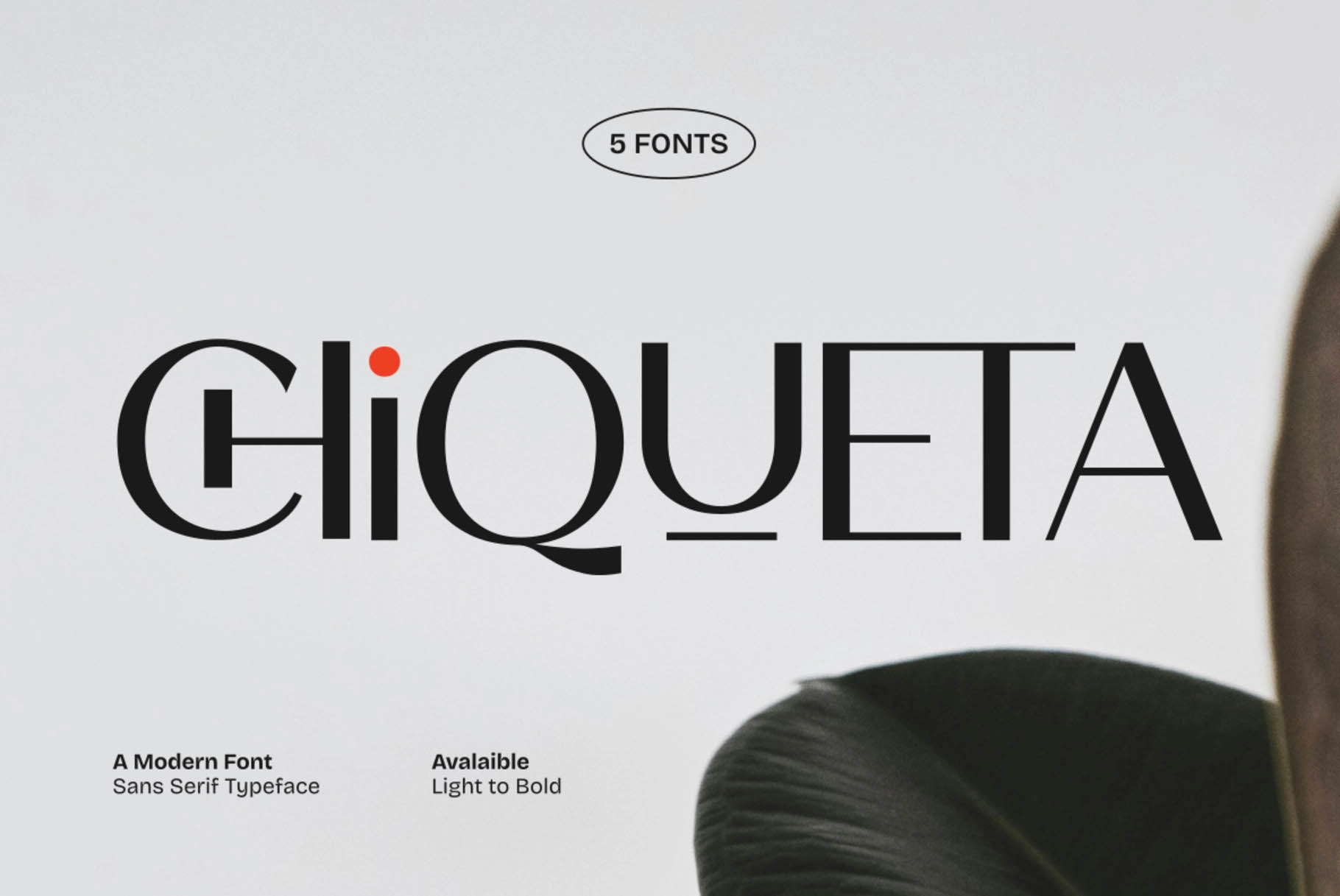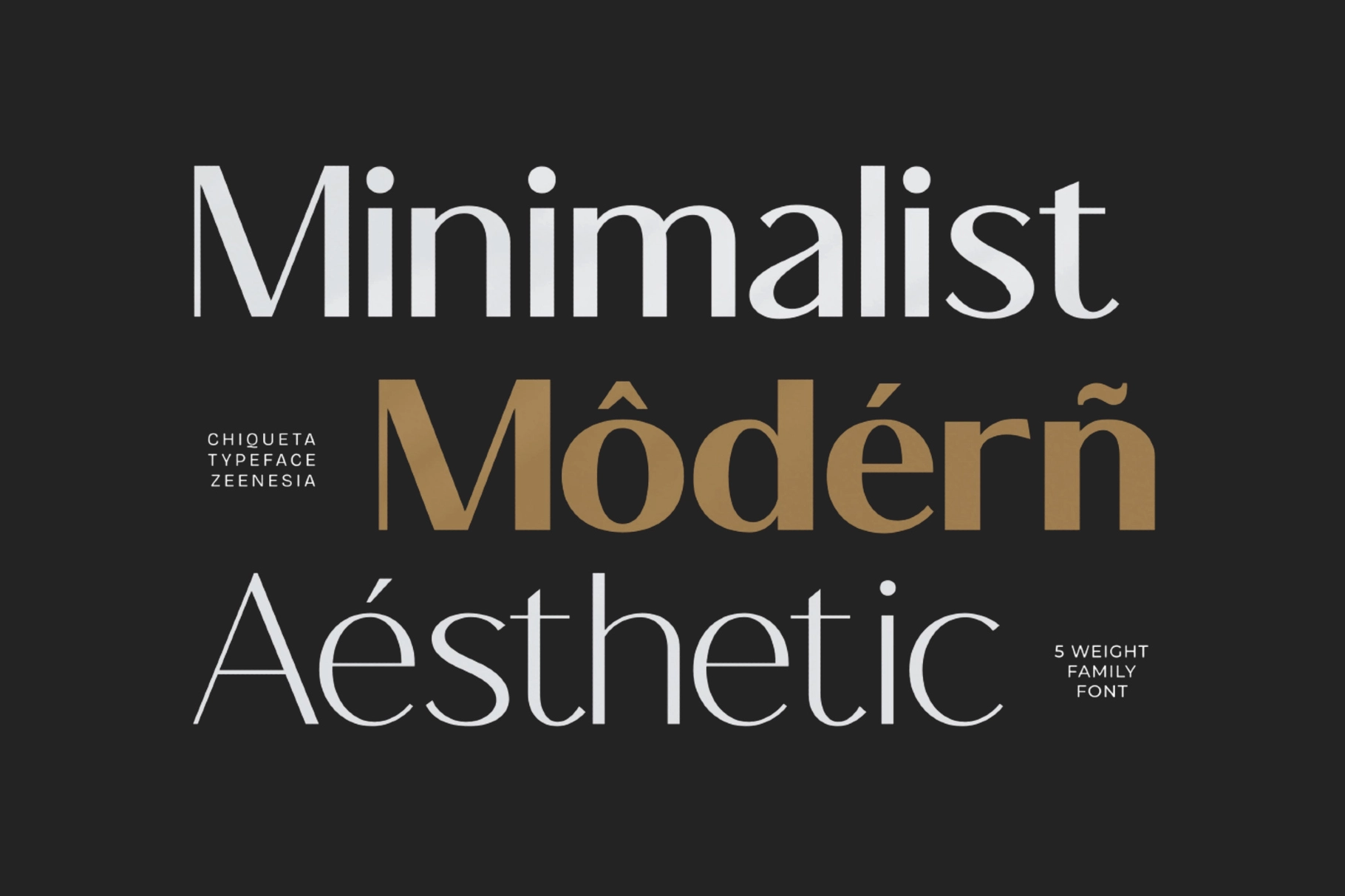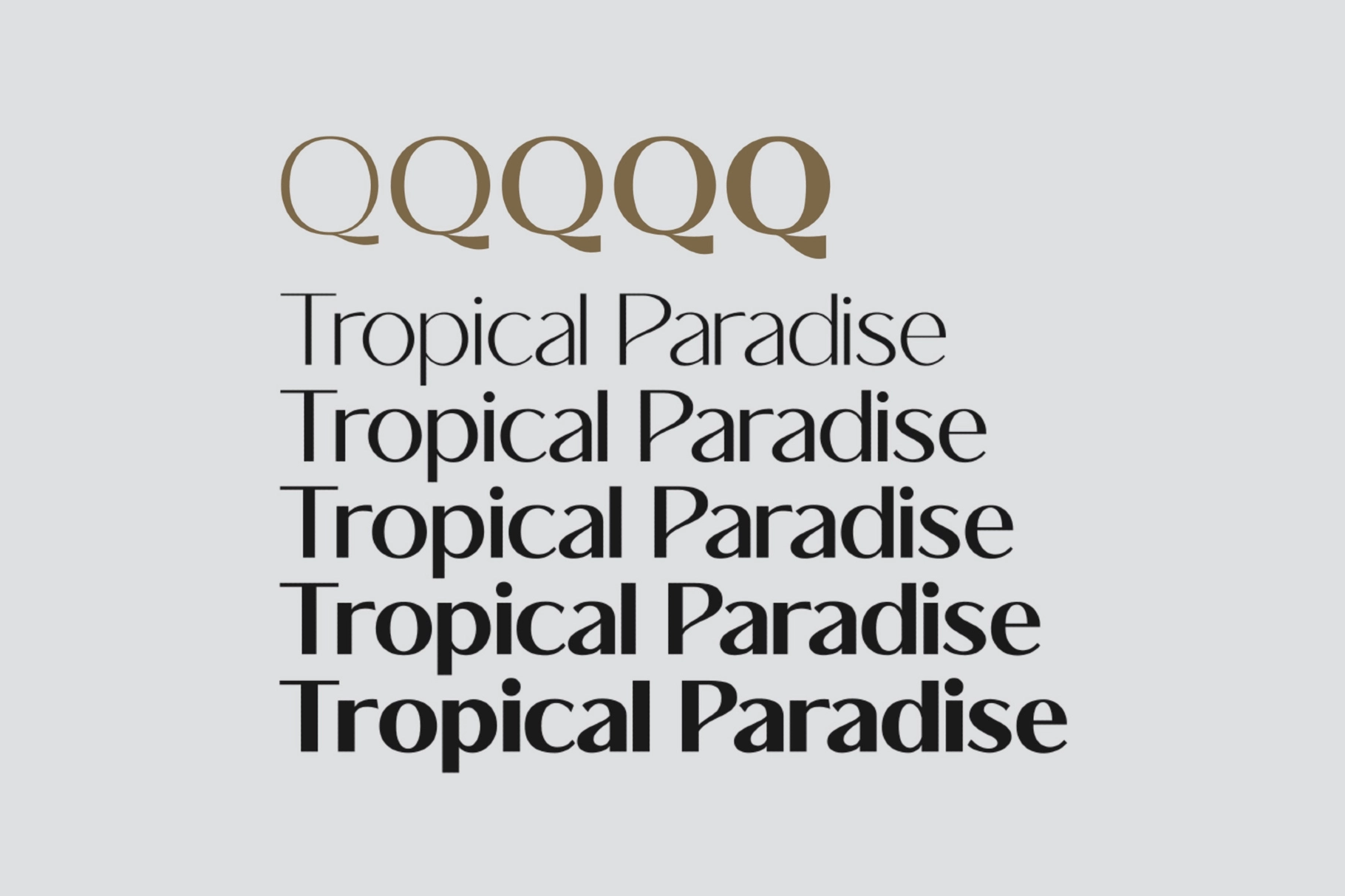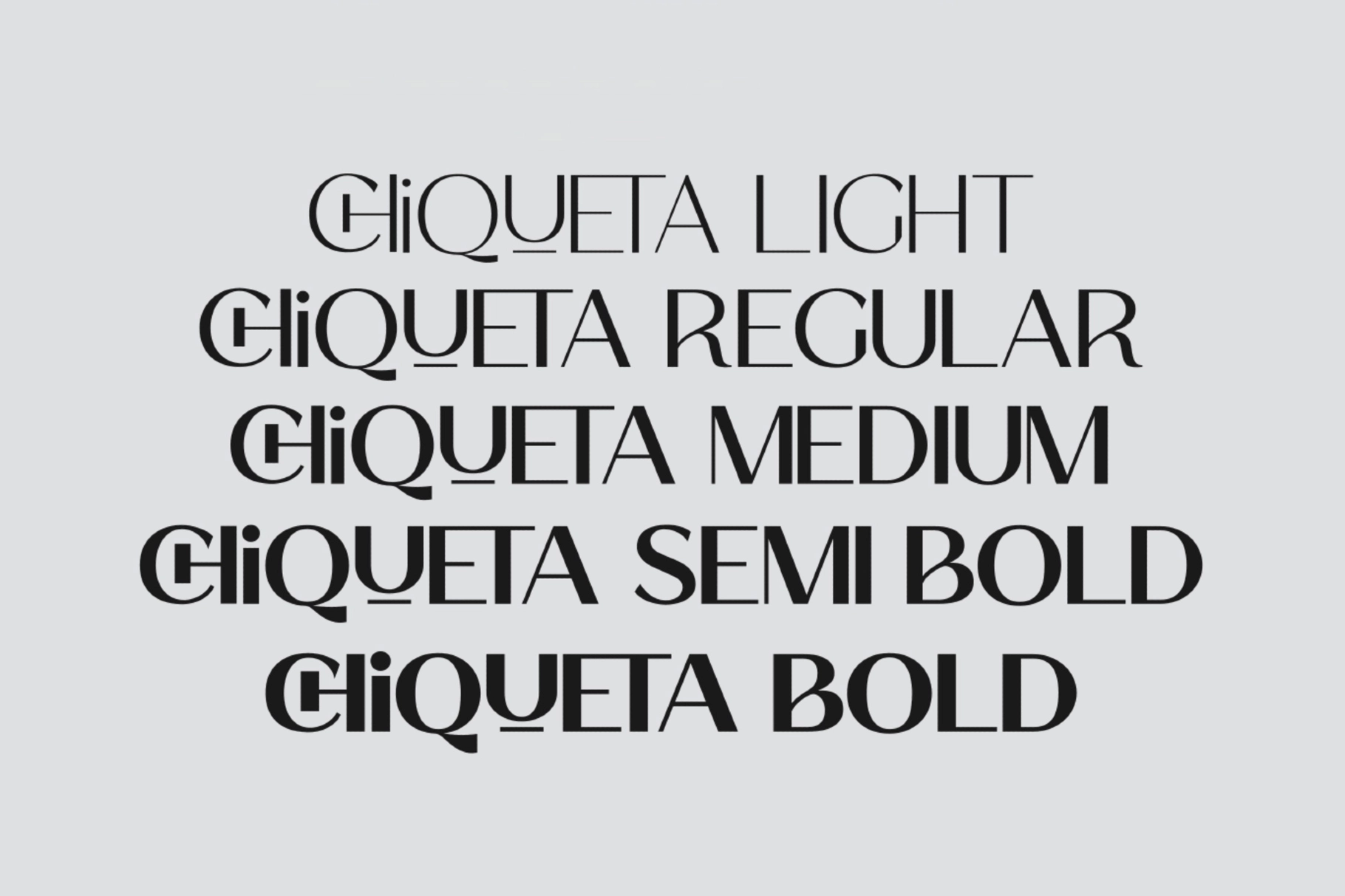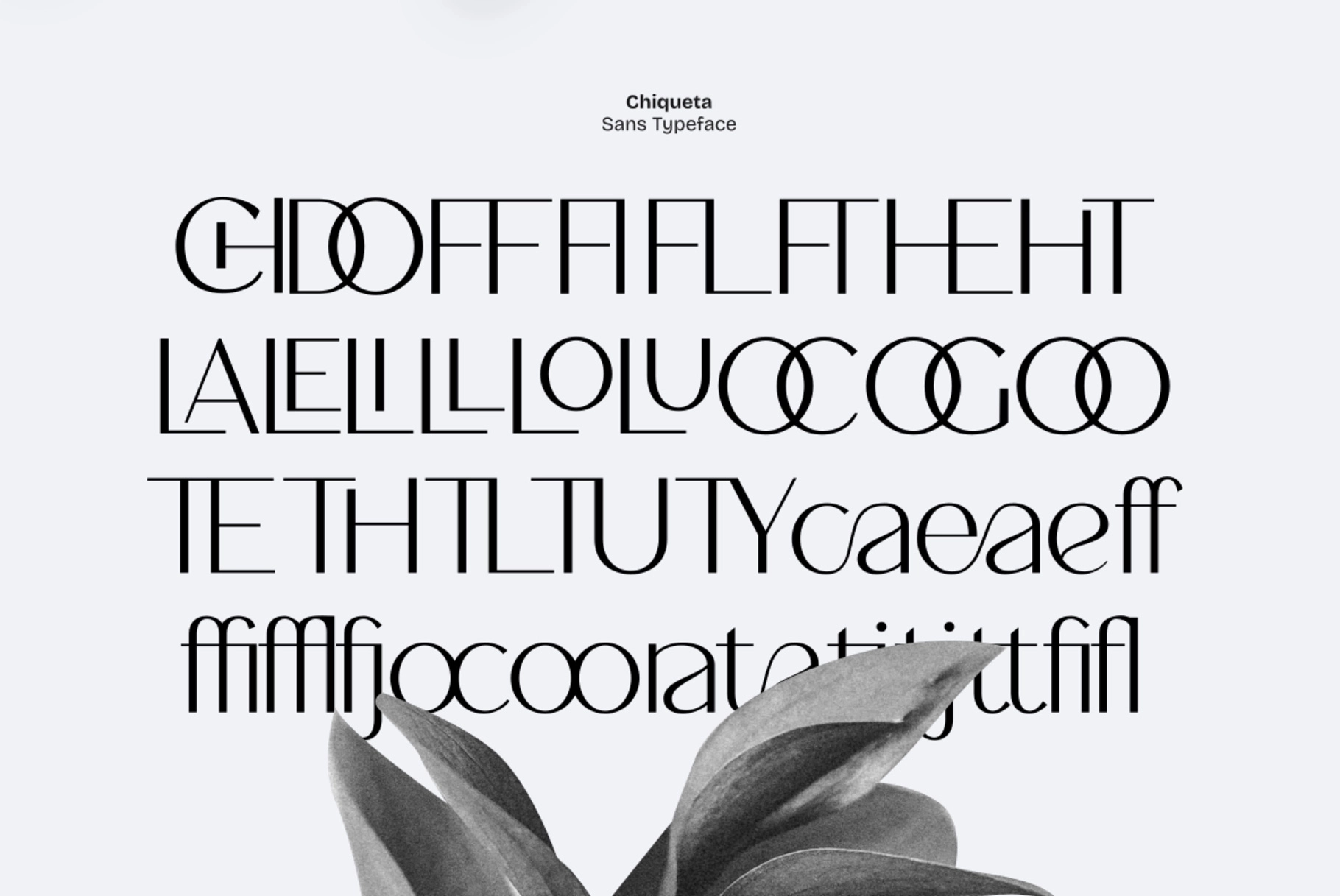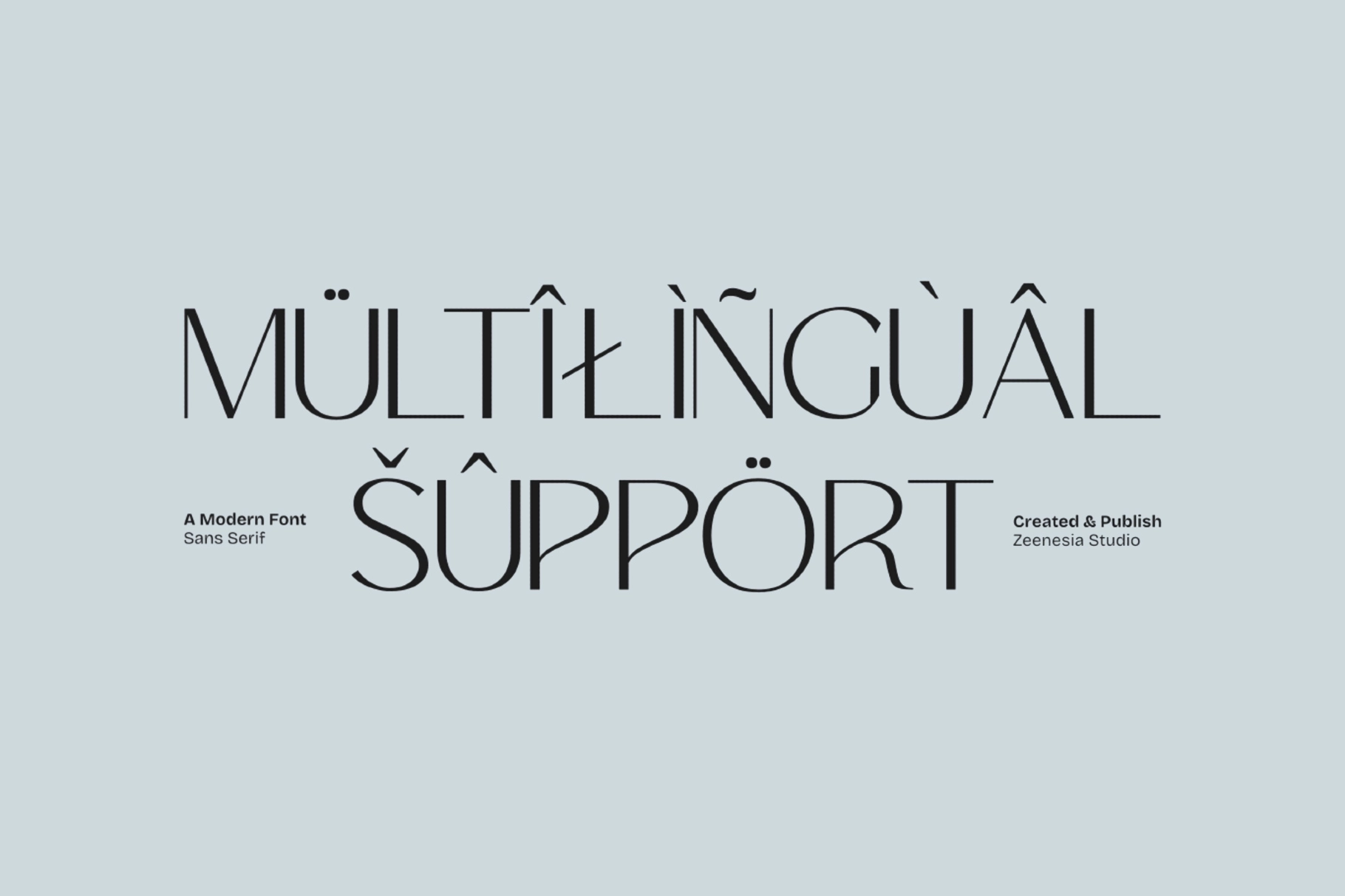
Chiqueta – Luxury Modern Sans Font
Chiqueta pairs tall, narrow proportions with delicate curved joins, landing as an elegant luxury sans font built around unusually tight spacing and tied ligature pairs — the C and H merge into one continuous stroke across every weight. Rounded bowls sit close to the vertical stems, keeping a slim, tailored profile even at the heaviest weight.
All five weights — Light, Regular, Medium, Semi Bold, and Bold — share the same tied ligatures and alternate letterforms, so the tone shifts from delicate editorial copy to a heavy fashion headline without breaking character. Use it for fashion branding, editorial layouts, logotypes, and premium packaging.